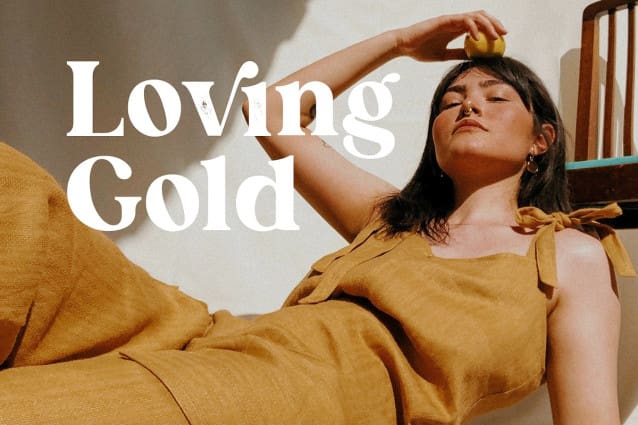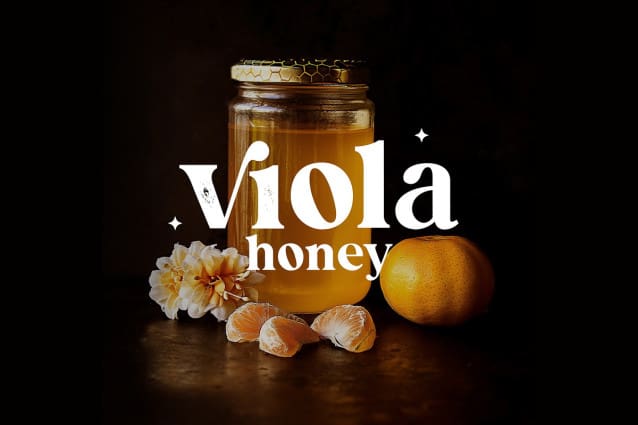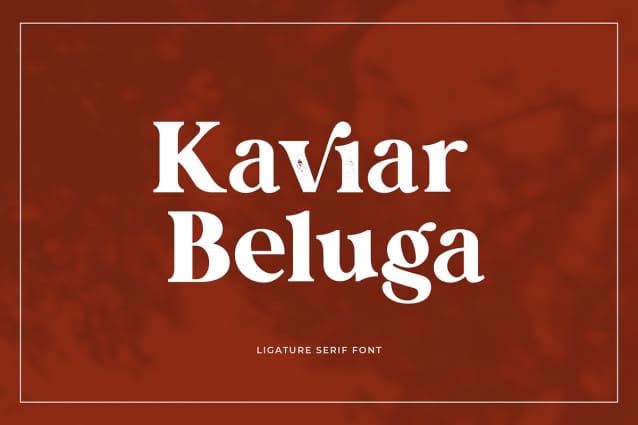
Kaviar Beluga Font
Kaviar Beluga Font –  Modern Serif font that feels beautiful classy, elegant, and modern. This font is ideally suited for a wide variety of projects, such as signature, stationery, logo, wedding, typography quotes, magazine or book covers, website headers, clothing, branding, packaging design, and more. Also, fashion-related branding or editorial design displays both masculine and feminine qualities.